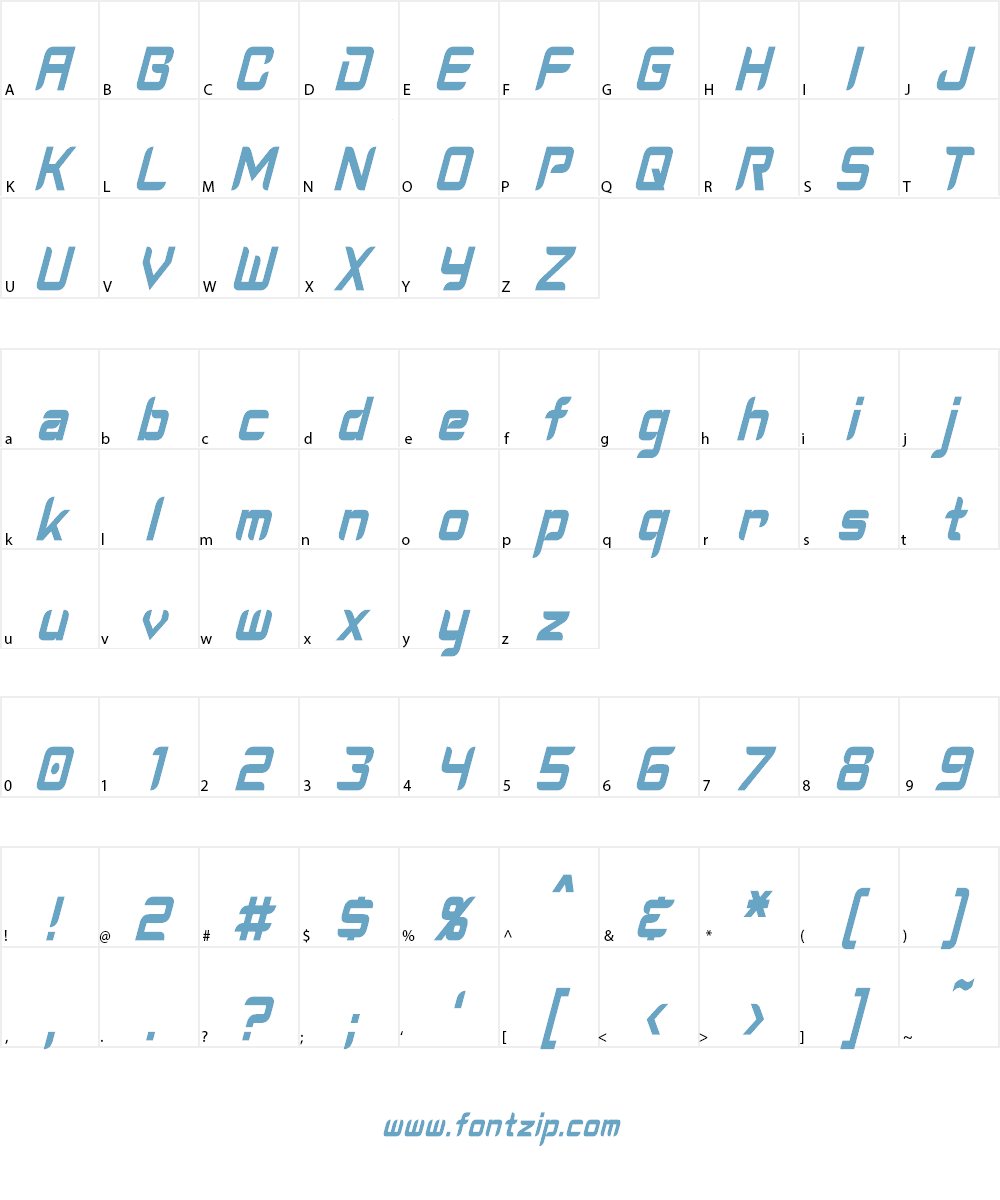
This typeface is based on Hasbro's "Cyberverse" line logo from "Transformers: Dark of the Moon" as well as the "GI Joe: Rise of Cobra" logo. Includes full alphabet, accent characters, and euro. Also includes italic version.